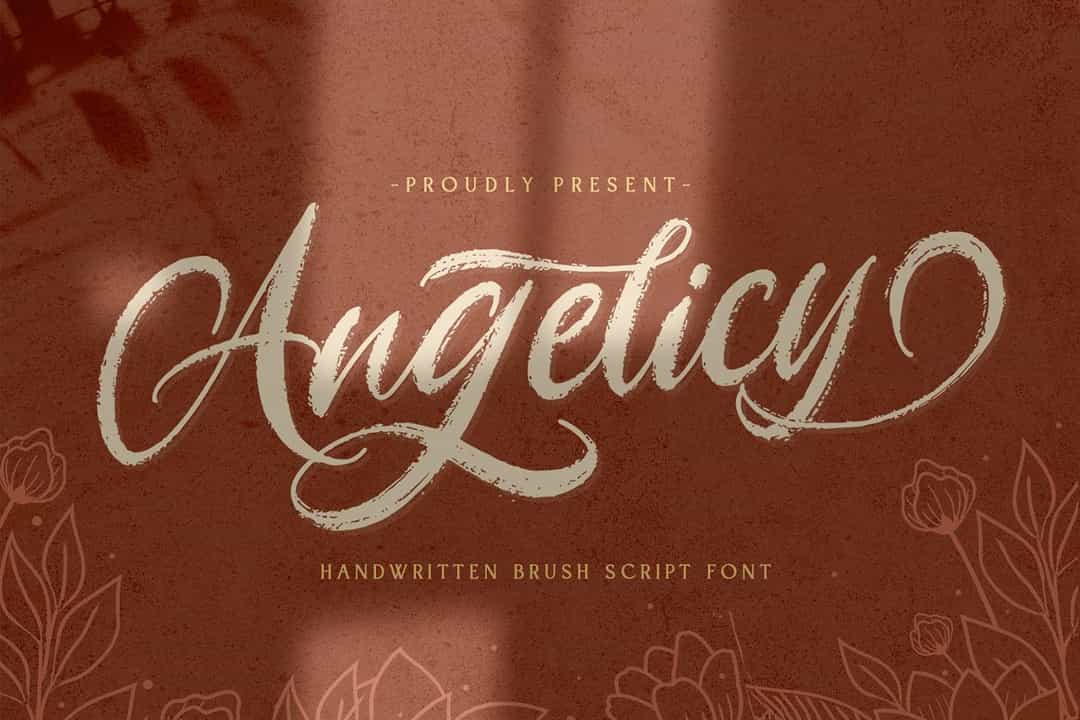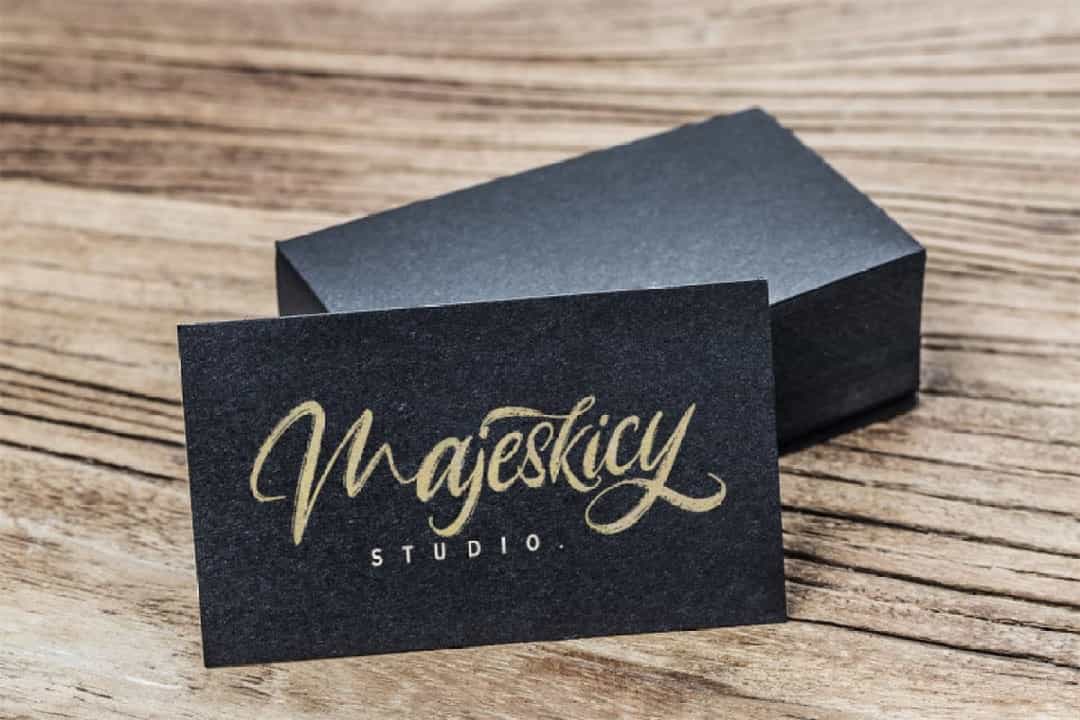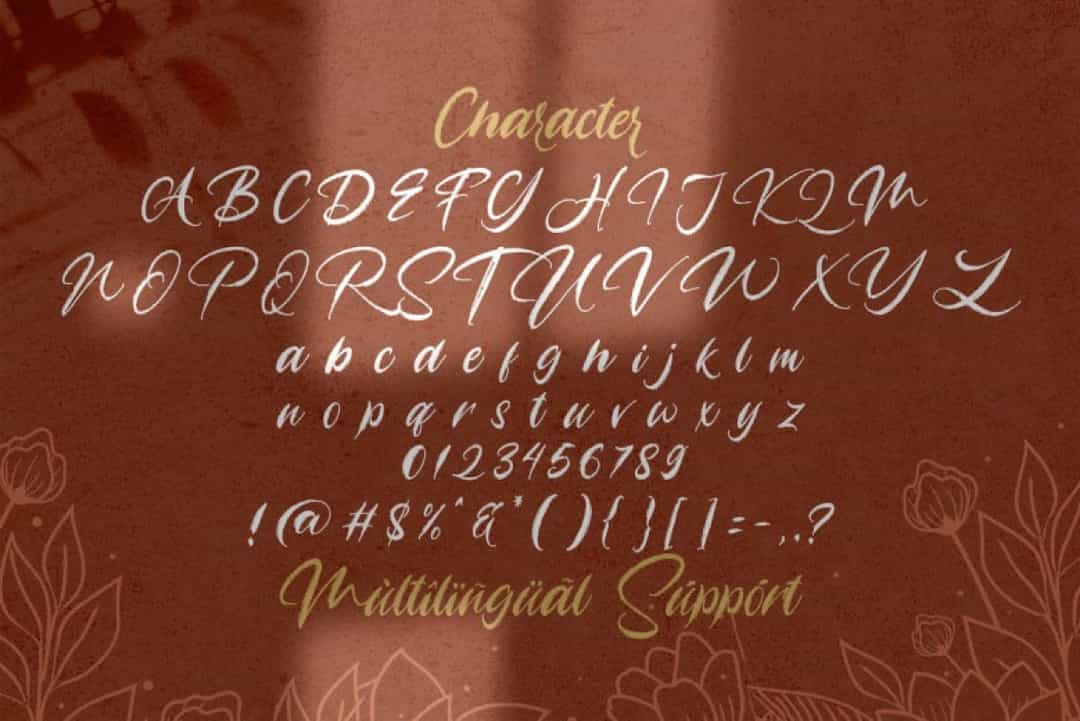
Anjelica also cutes varieties that are contextual, and auto-ligatures which are activated by Standard Ligature. In addition, each standard character of Aster Script is accompanied by Swash alternative characters. Angelicy is a beautiful Modern Script and handwriting typefaces with calligraphy brush bouncing at the base.